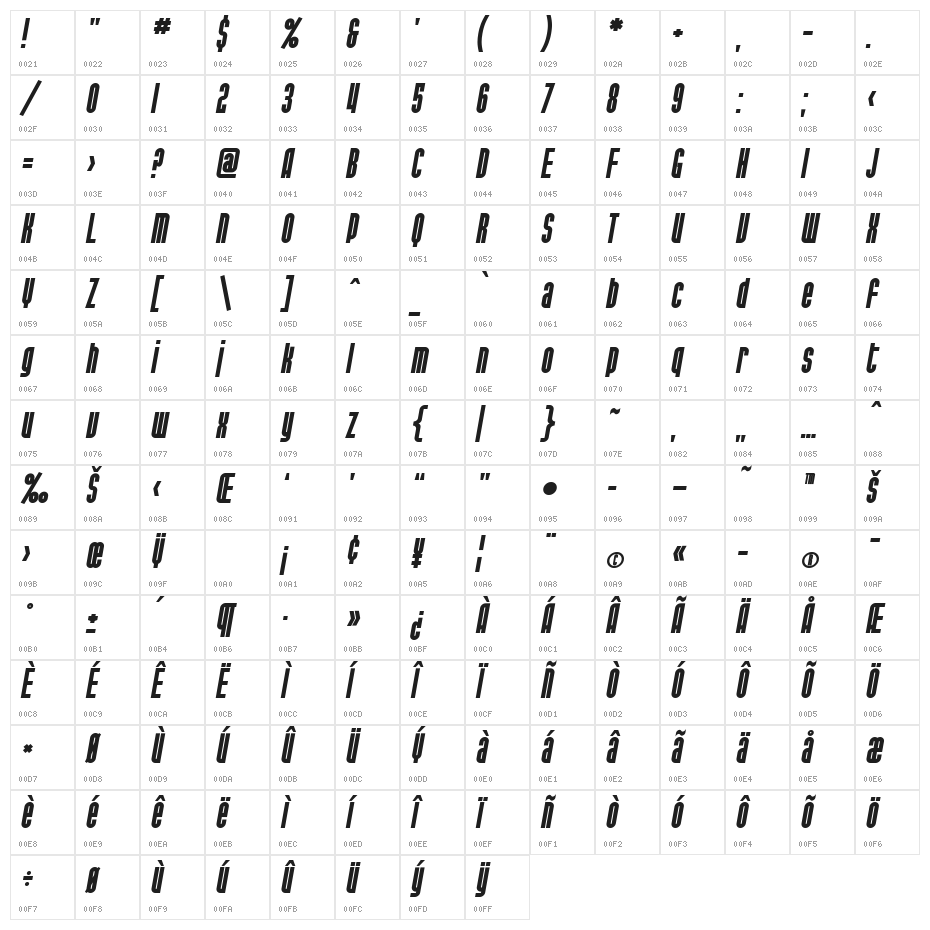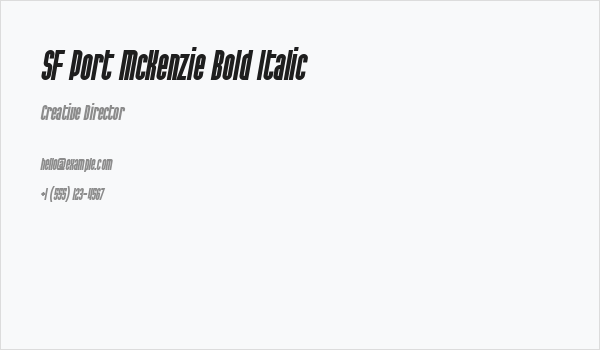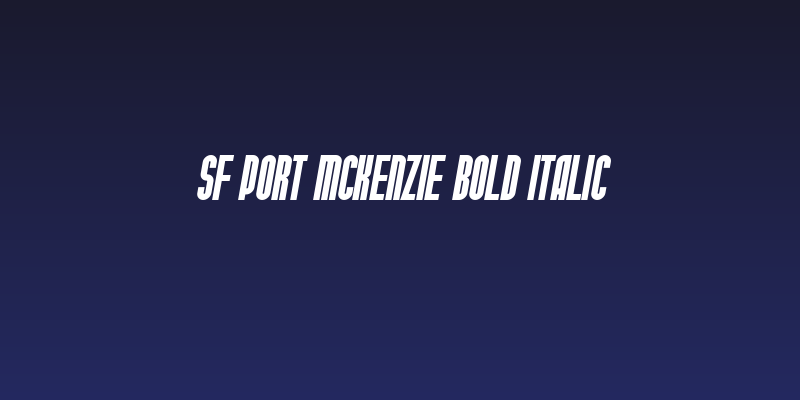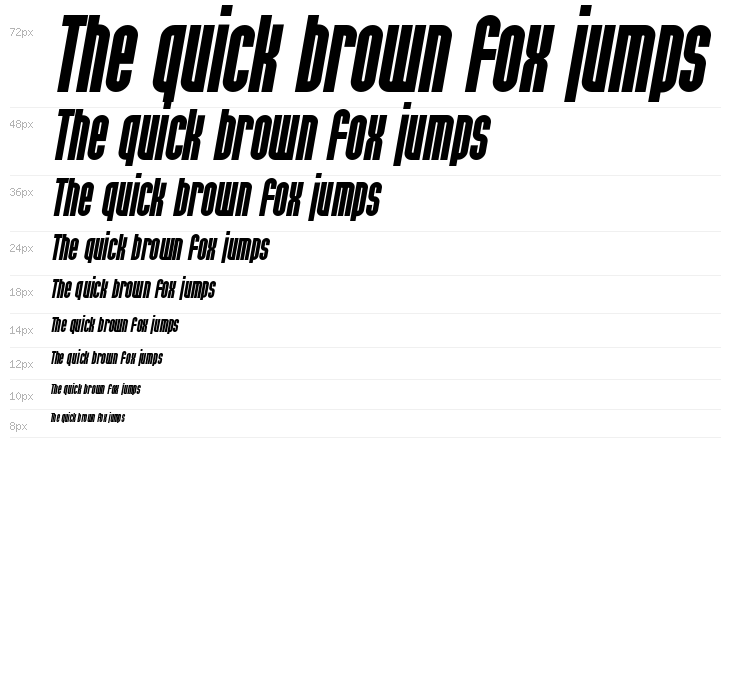
SF Port McKenzie Bold Italic Font
SF Port McKenzie Bold Italic Description
This font exhibits a bold and italicized style with a strong presence. The characters are tall and slightly condensed, giving a sense of urgency and dynamism. The strokes are thick, providing a robust and impactful appearance. The italic slant adds a sense of motion and modernity, making it suitable for attention-grabbing headlines. The overall design is clean and straightforward, with minimal decorative elements, focusing on clarity and readability. The numbers and special characters maintain the same bold and italicized characteristics, ensuring consistency throughout the typeface.
| Proposed Projects | Ideal for sports branding, dynamic posters, modern advertisements, and impactful headlines. |